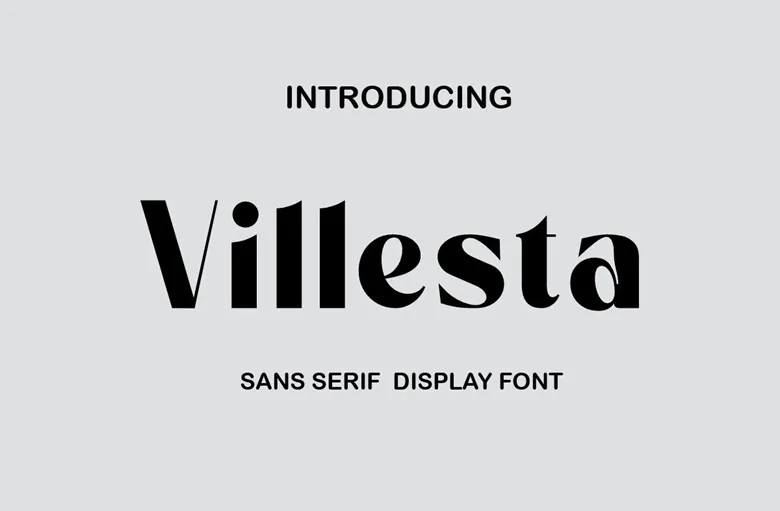
Villesta Font
Villesta is a sans serif typeface intended for use in contemporary projects as its design is clean, elegant and minimalistic. Clean lines and symmetrical structure make this font appropriate for different designs and postings like branding, posters, and interfaces. Thus in term of design, Villesta comes in two unique styles namely Regular and Italic.
Regular style engulfs a strong, conventional appearance and the Italic style infuses an elegant and spirited creation suitable for passages that requires call out. Therefore, Villesta typeface is suitable for projects that one wants to look trendy and fashionable and is generously provided with drawing characters.
Villesta Sans Serif Font